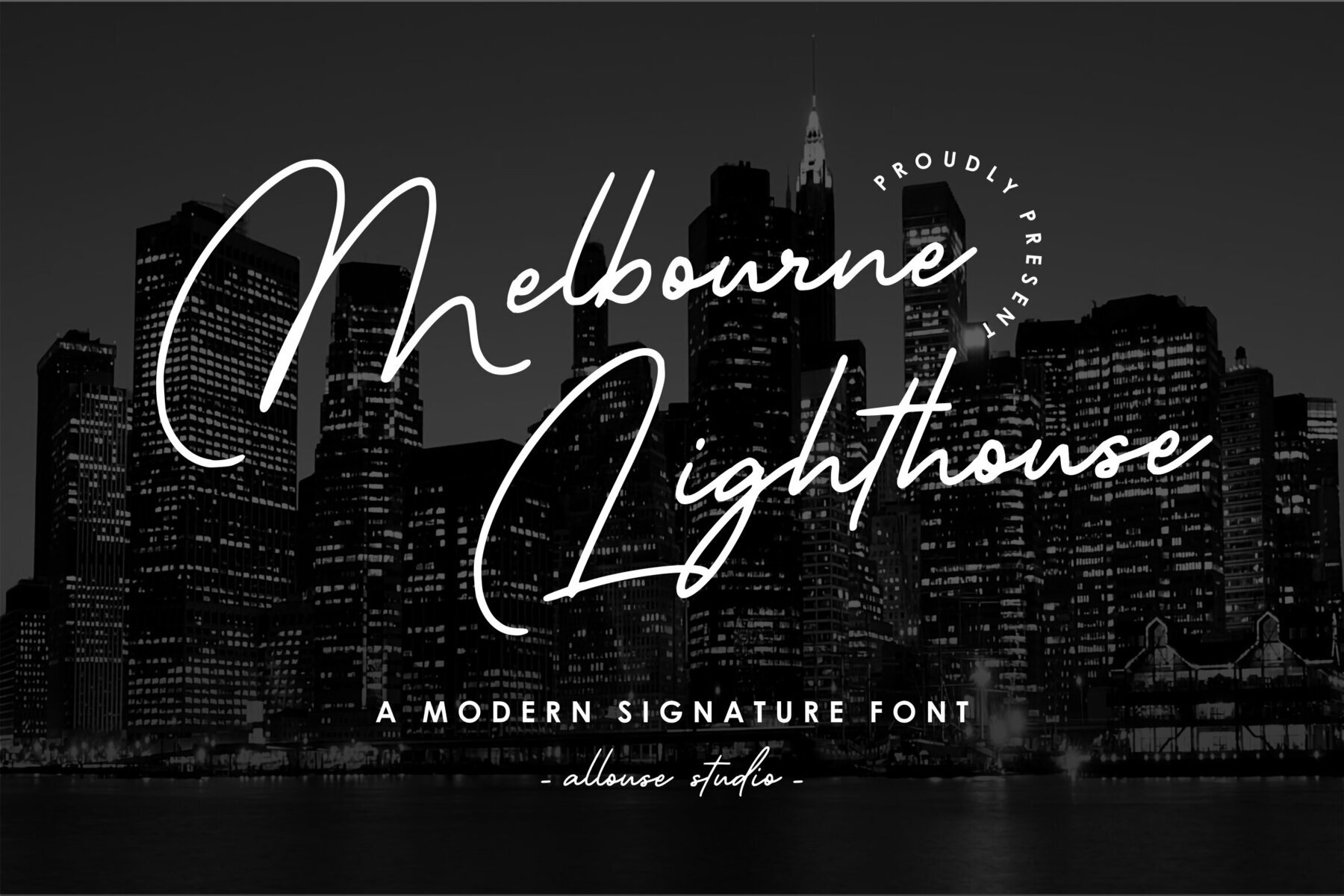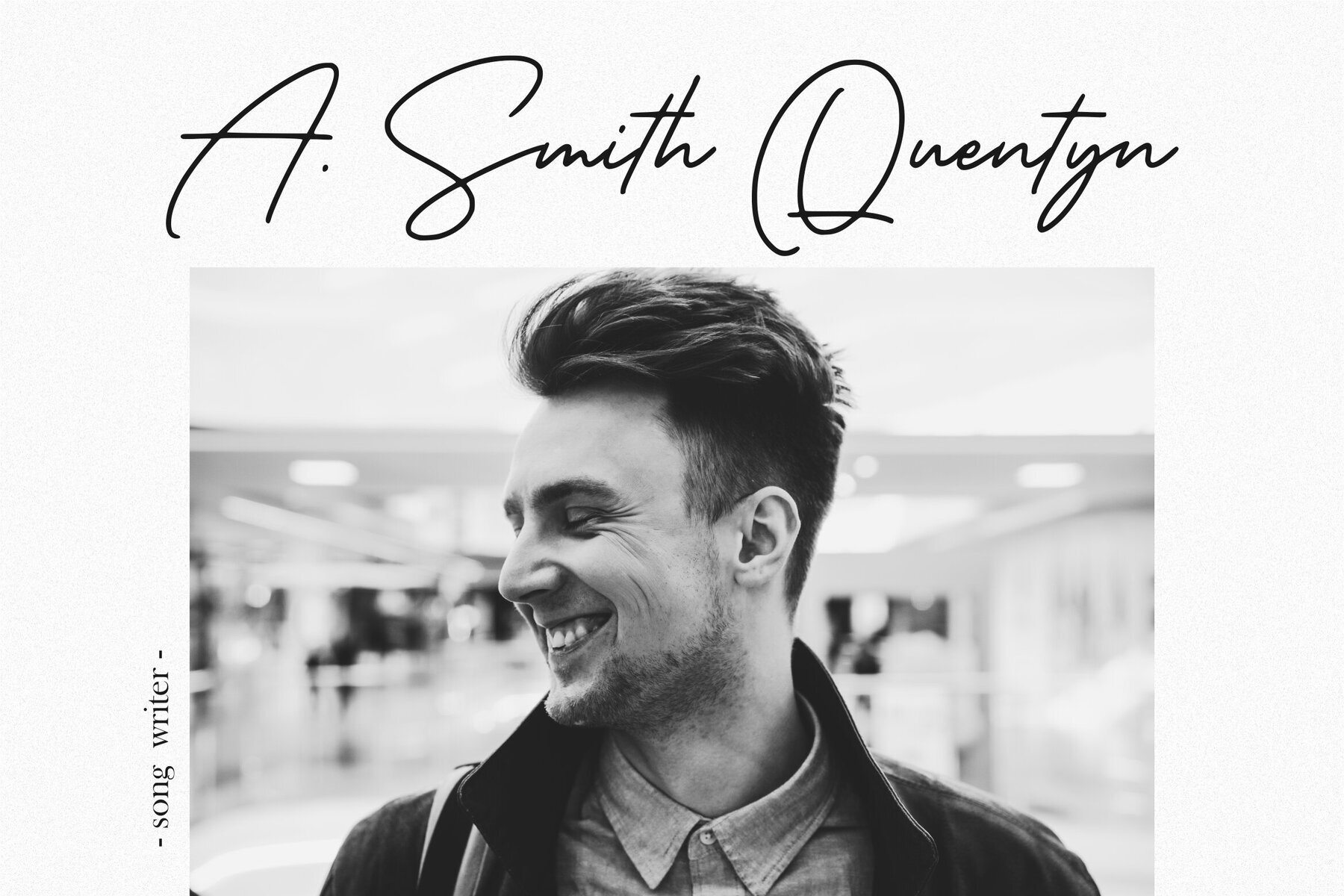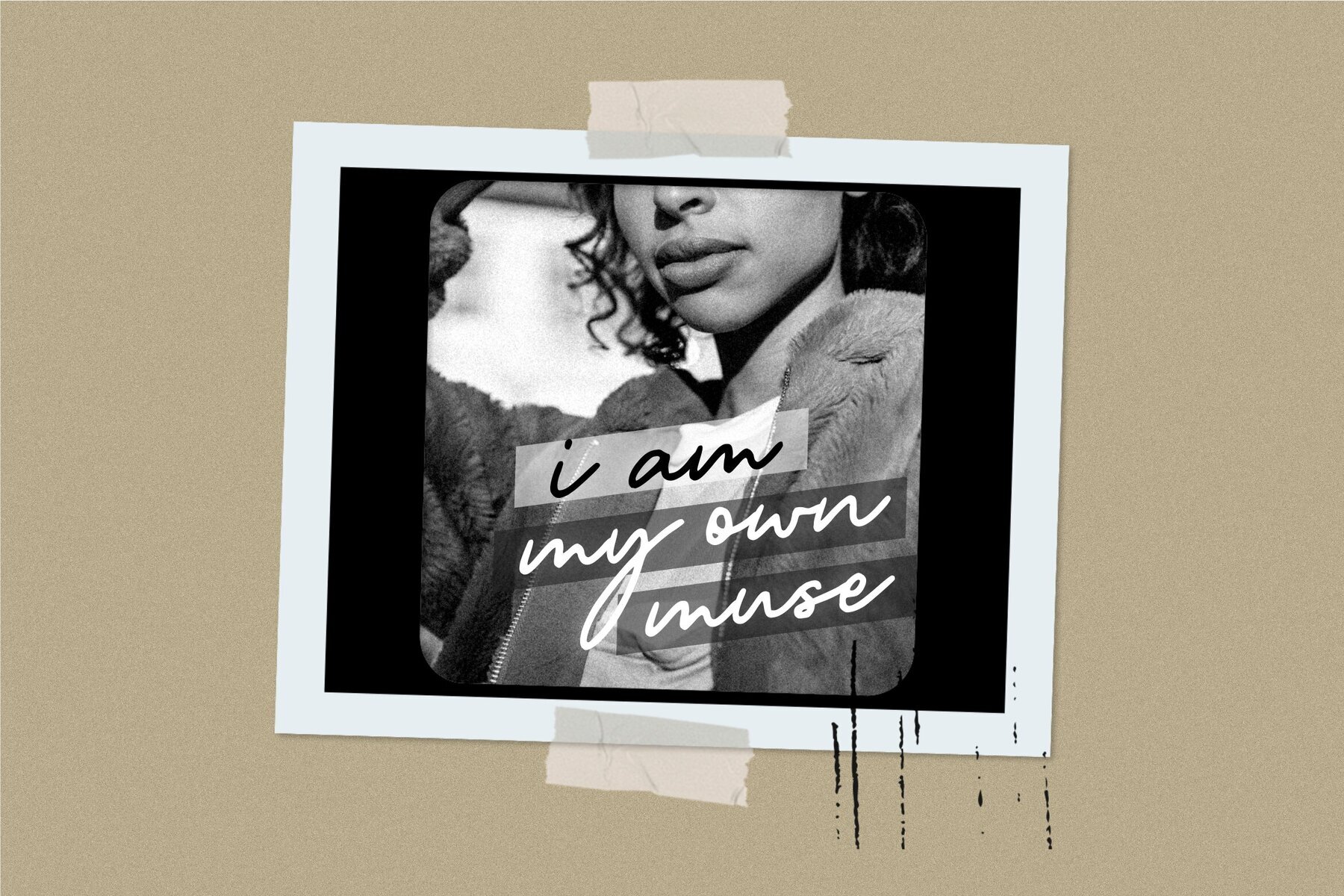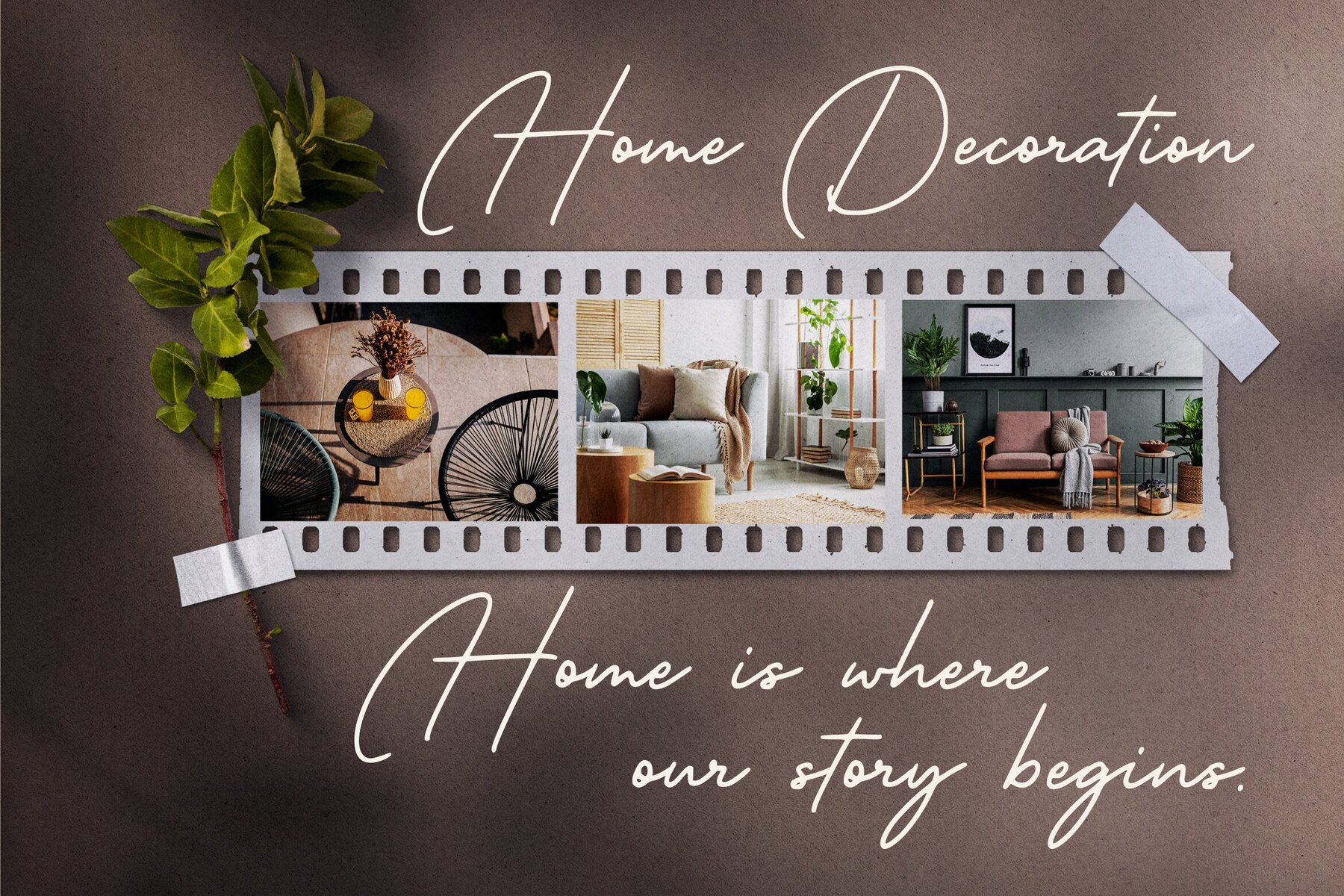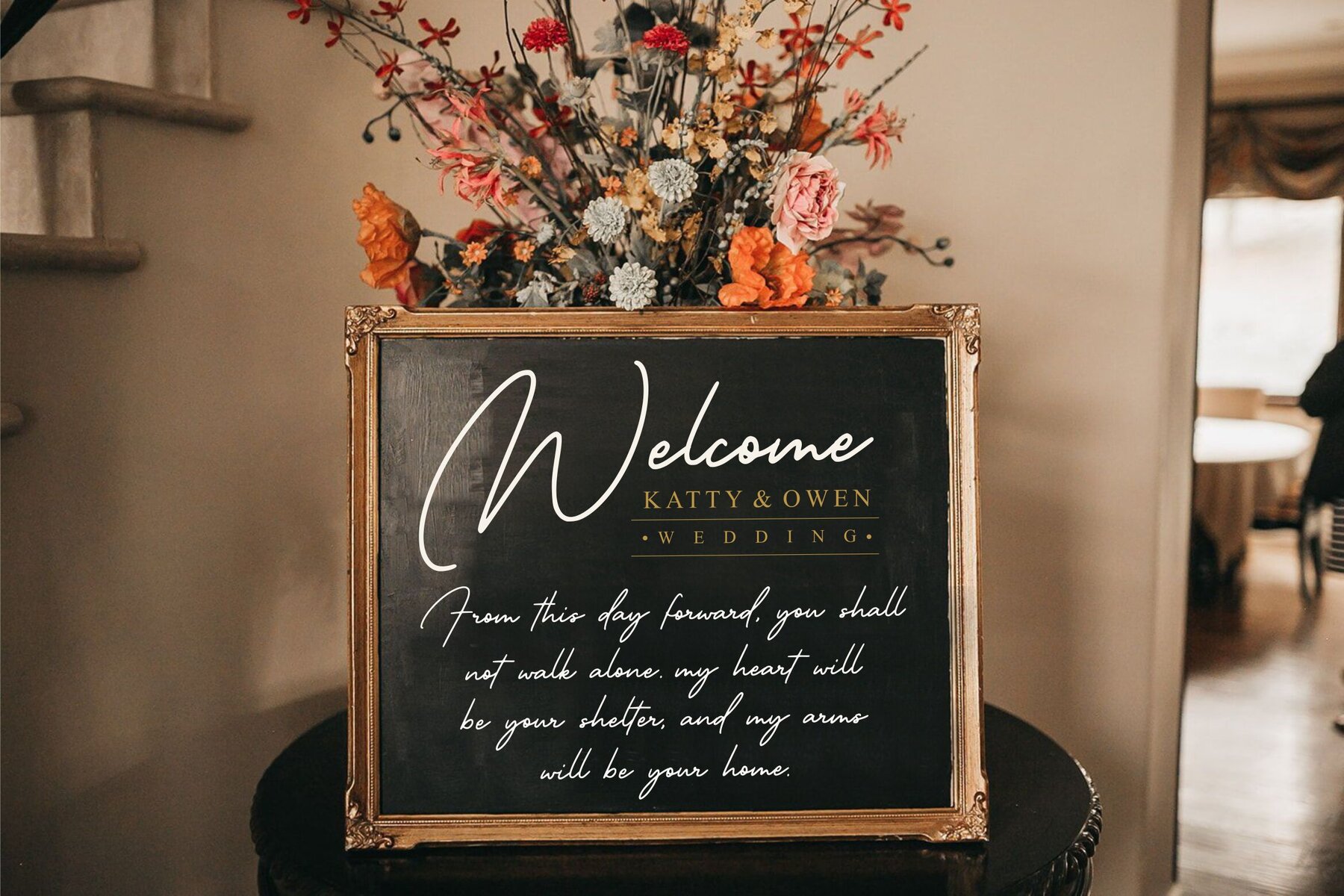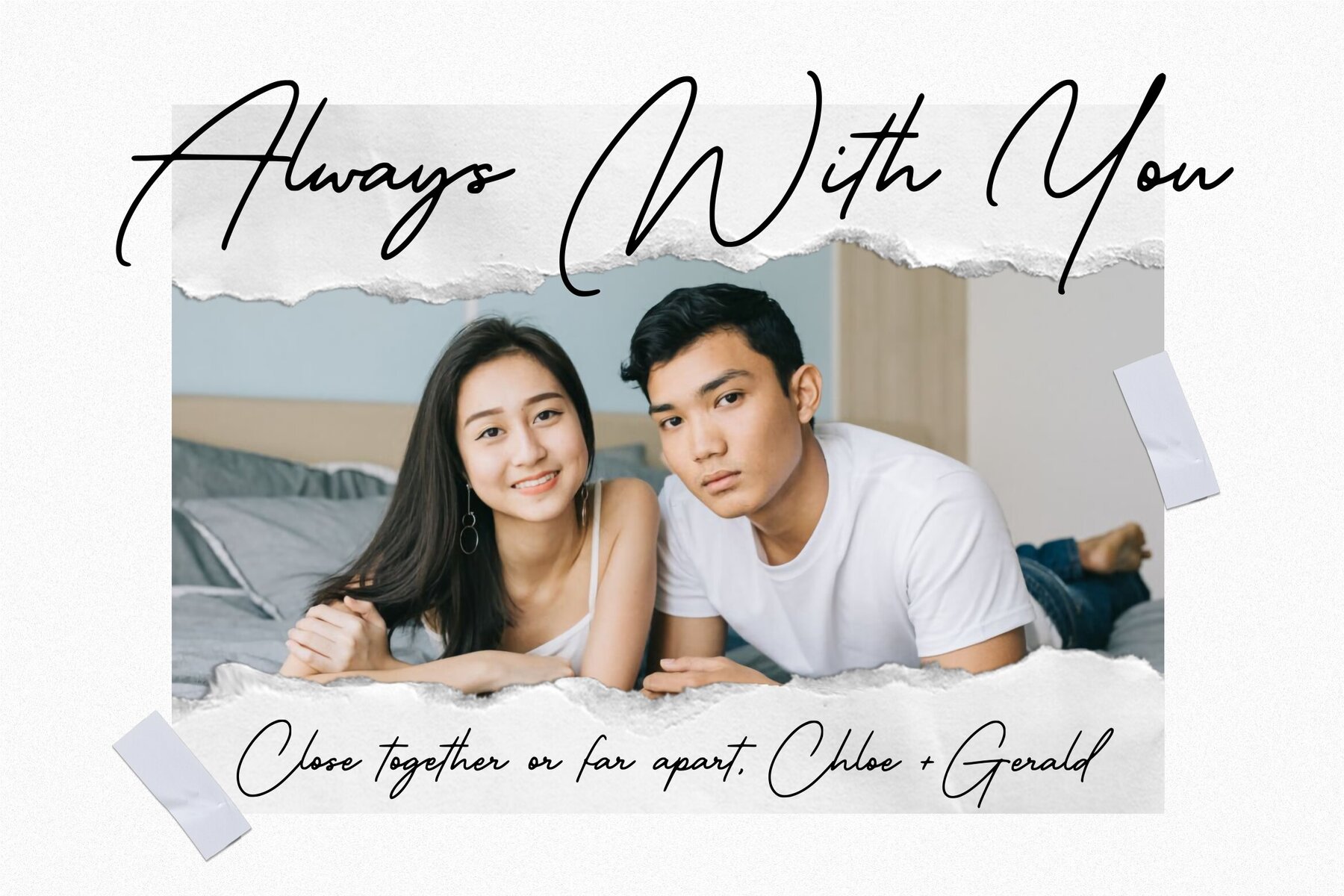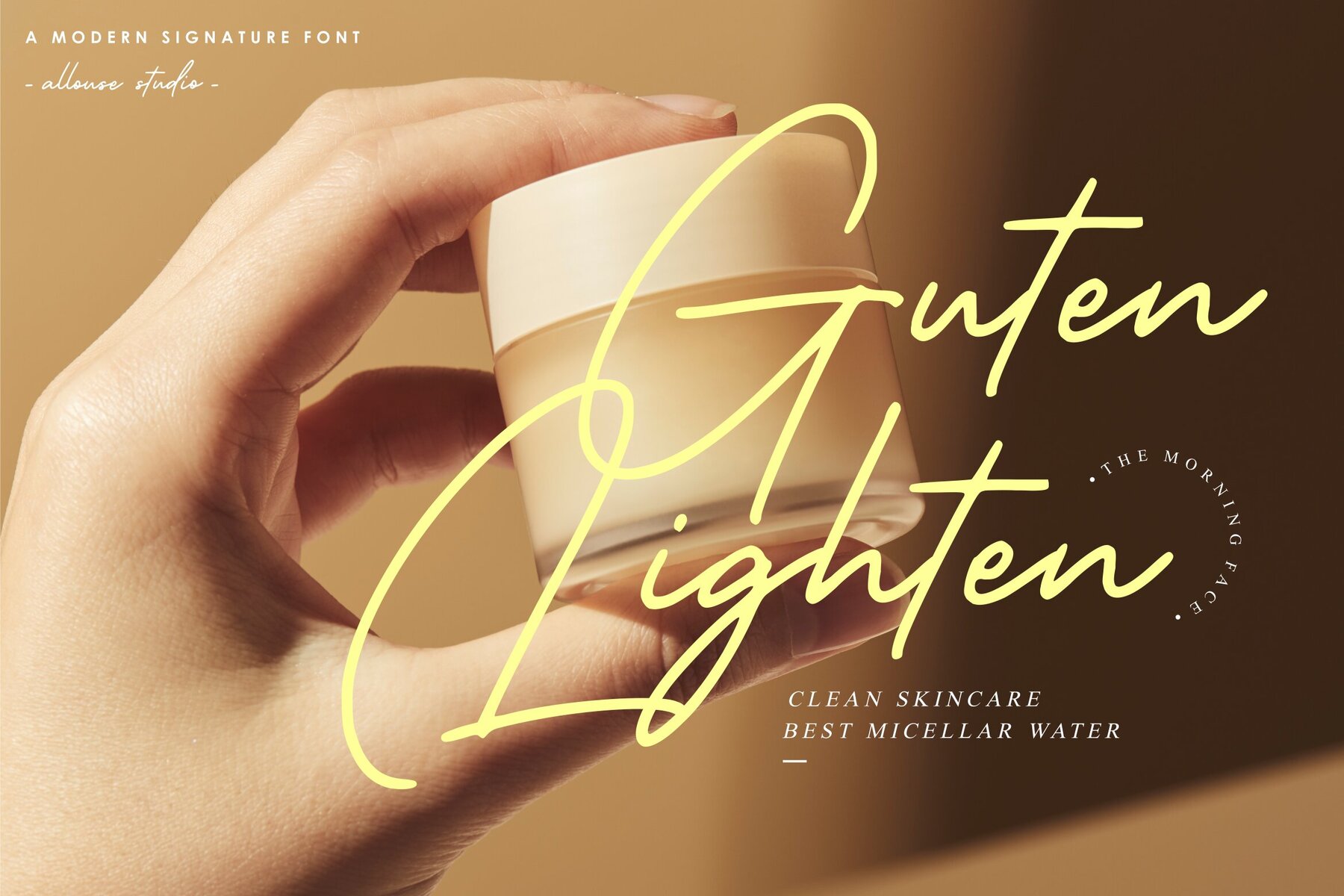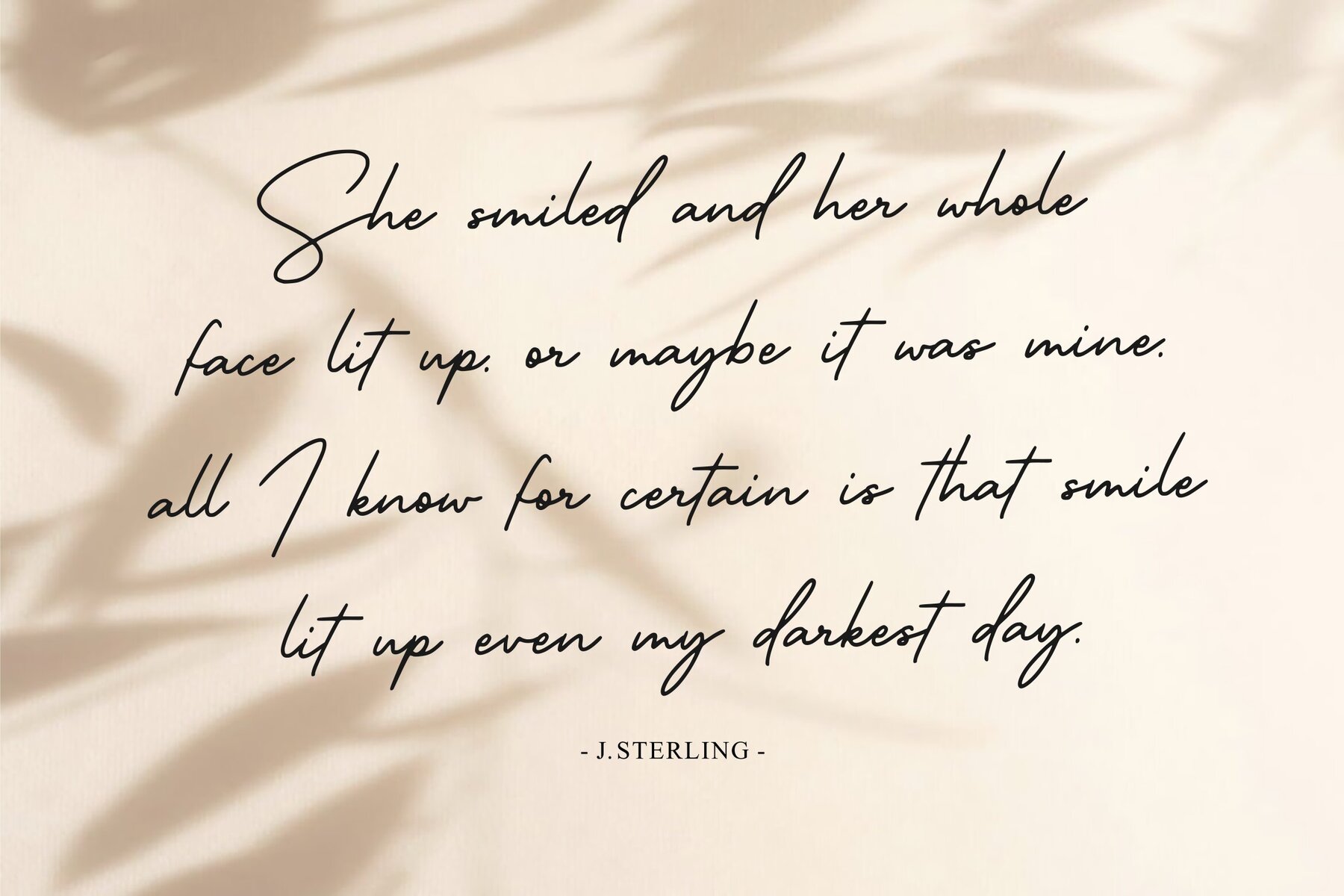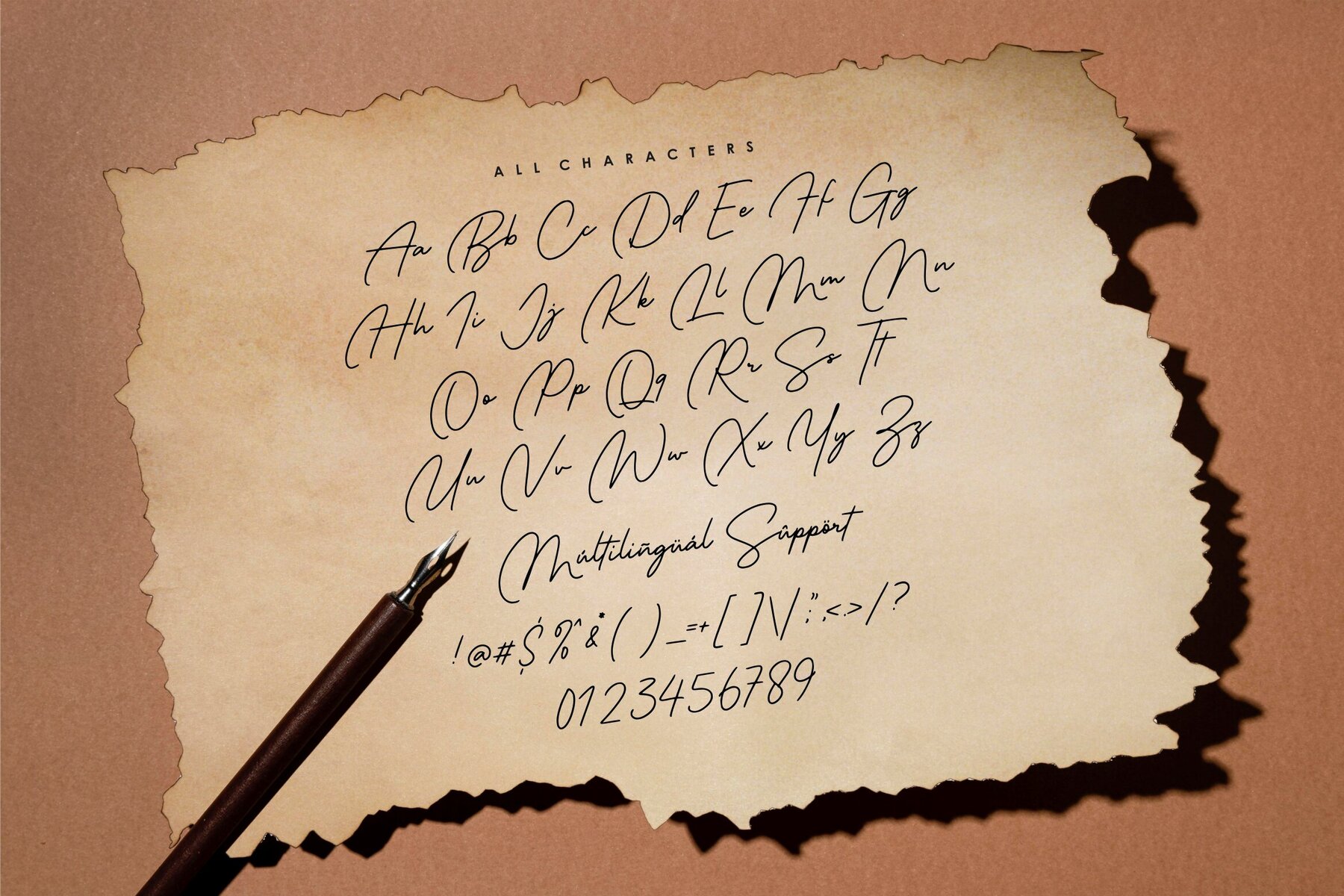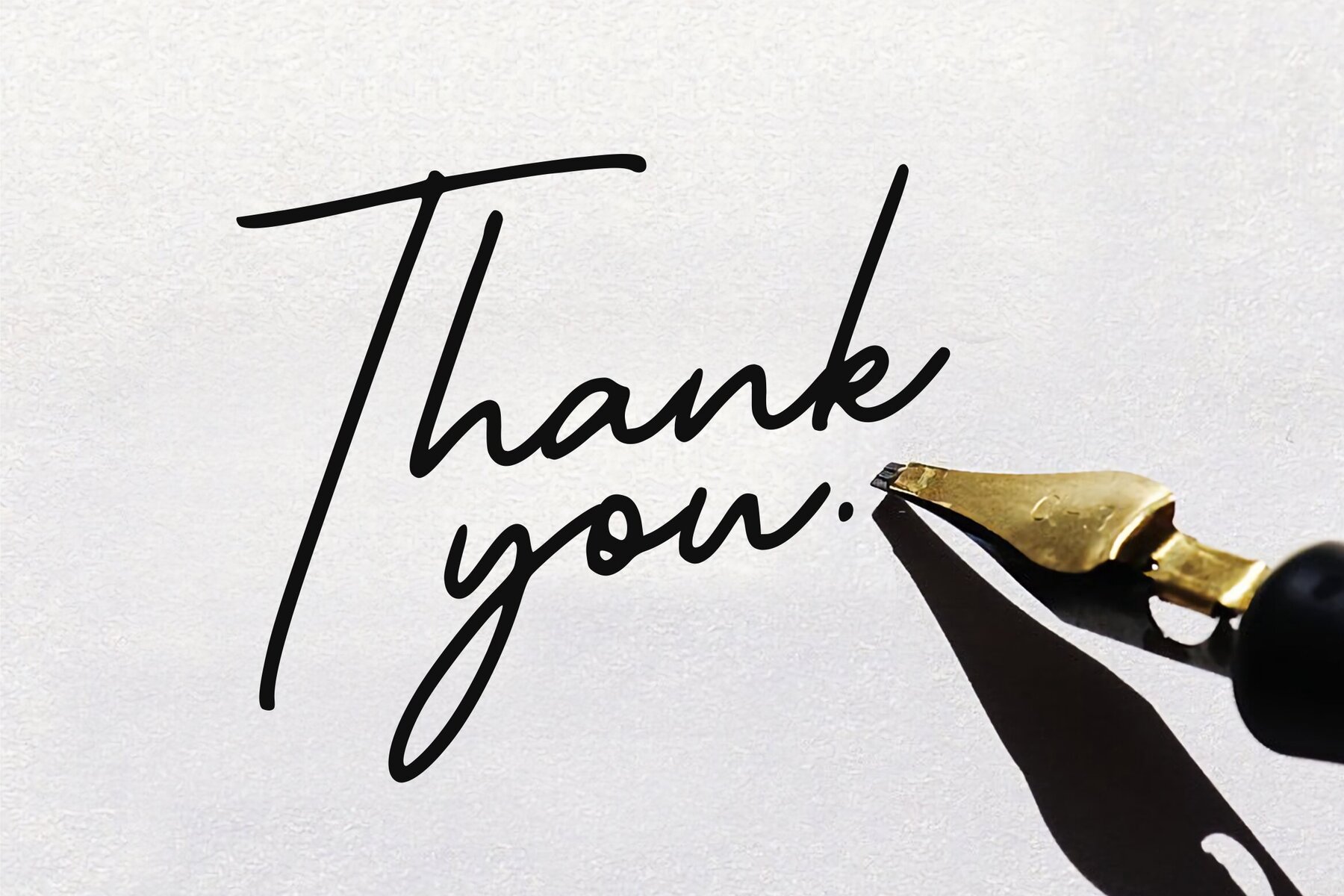
Melbourne Lighthouse Font
Melbourne Lighthouse Regular
Discover Melbourne Lighthouse, a modern signature font that offers elegance and versatility for a myriad of design applications. Ideal for product packaging, branding projects, magazines, social media, weddings, and more, this font is perfect for adding a personal touch to any background.Melbourne Lighthouse: A Modern Signature Font